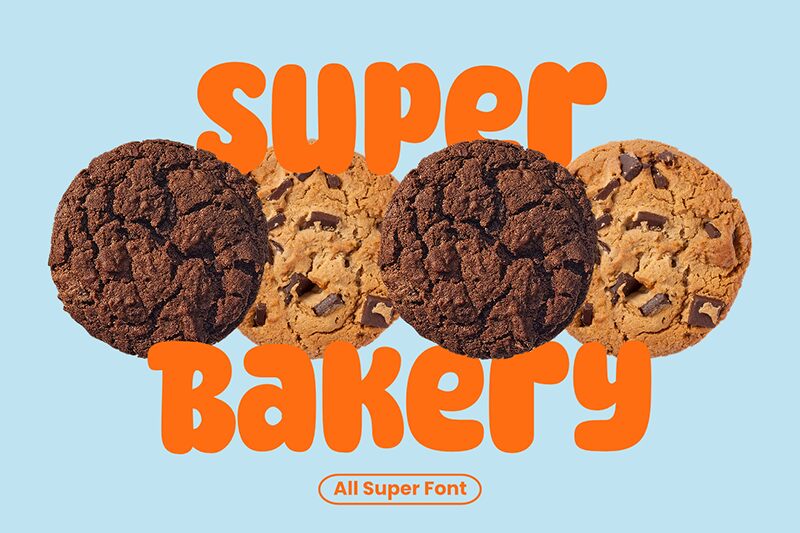
Super Bakery font by fsuarez913 is a playful cartoon font with bubbly characters and exceptional readability. Its rounded letters allow for a truly whimsical vibe. The informal display typeface is great for short body texts and titles alike introducing fun wherever it appears.
Super Bakery free font can be used in packaging, apparel deigns, stationery, printed materials, advertisements, book covers, social media posts or stories, website banners, infographics, promotional projects… the list goes on!
Super Bakery